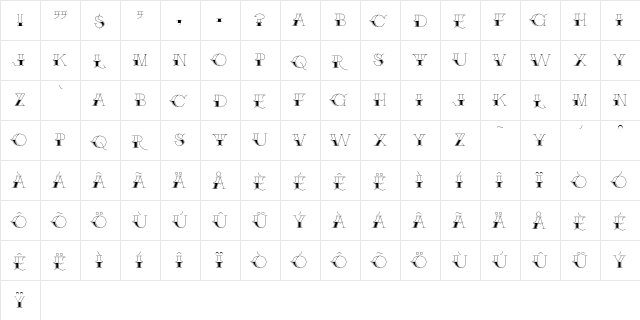
Brake Fluid Regular
Design Context for Brake Fluid Typeface
Brake Fluid is a composed and adaptable typeface that performs quietly and consistently across a wide range of design contexts.